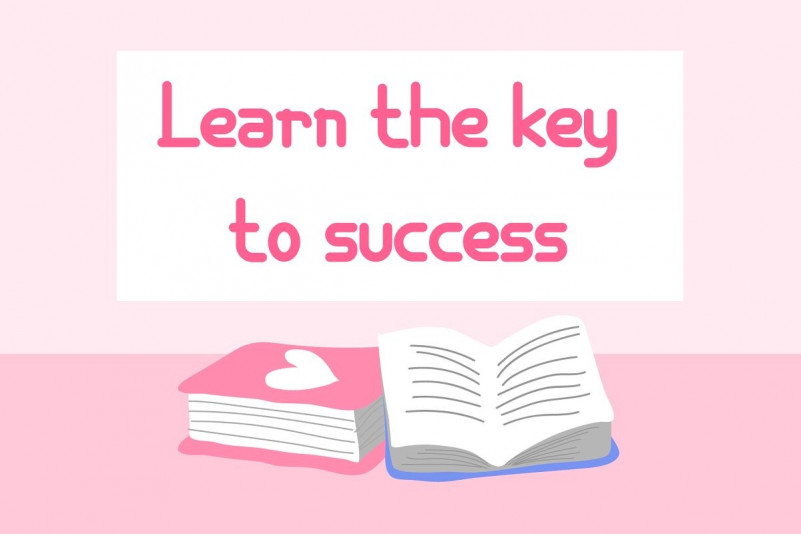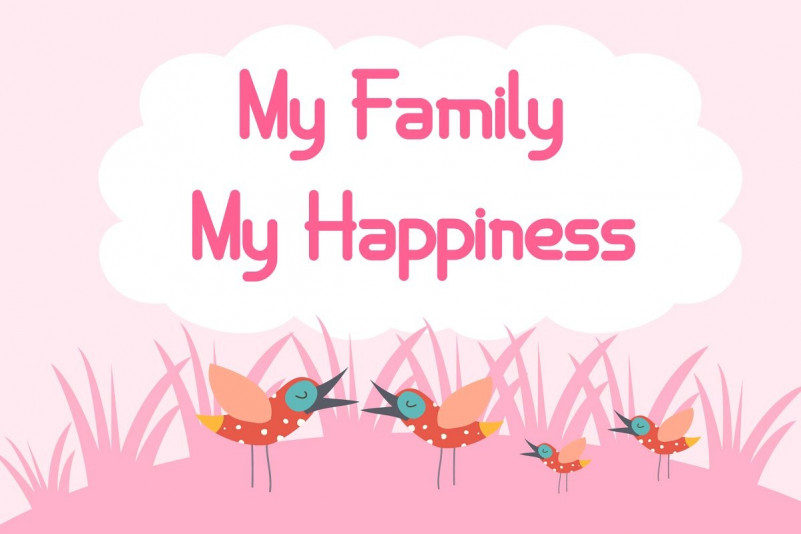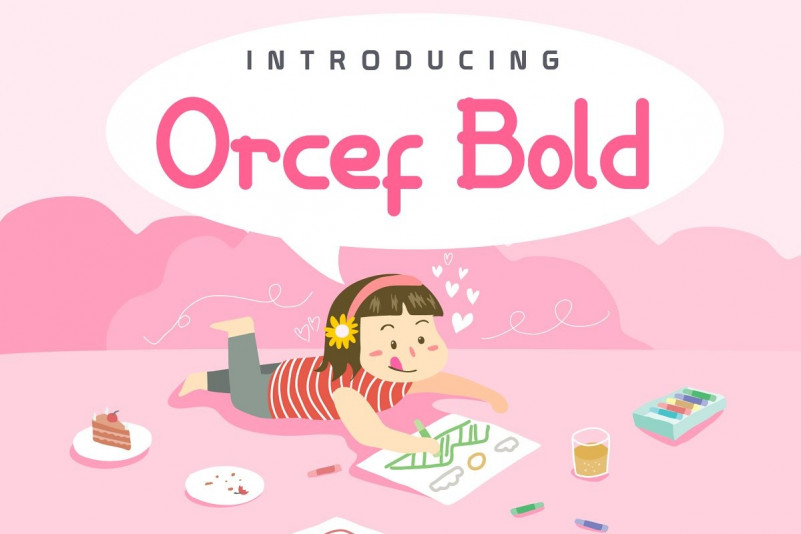
Orcef Bold Font
Orcef Bold Font in the style bold. Set of multicolored bright letters for inscriptions and your design. Vector illustration. Isolated on white background.